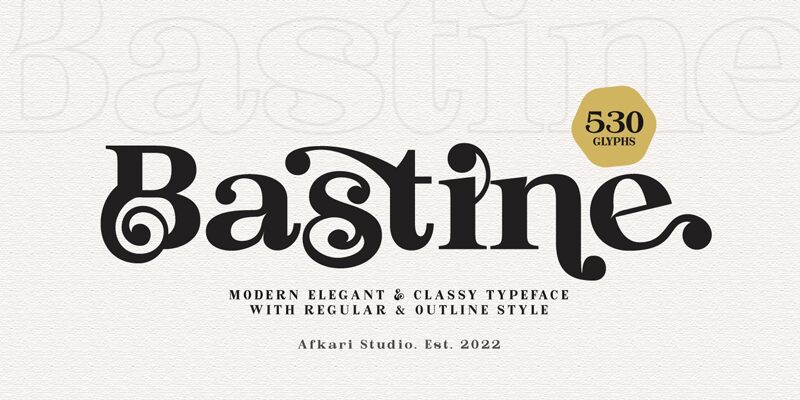
Bastine Outline is a bold, semi-expanded serif font designed by Afkari Studio's Musthafa Kamal Emje. Its smooth curves and sharp edges make it perfect for adding a touch of sophistication to any project. With its strong presence, Bastine Outline can be used for impactful headlines or eye-catching logos. Its semi-expanded width also makes it ideal for longer blocks of text, such as books or reports, without sacrificing readability. Whether you're designing a website, creating a poster, or crafting an invitation, Bastine Outline is the perfect choice to add an elegant and professional touch to your project.
Bastine Outline